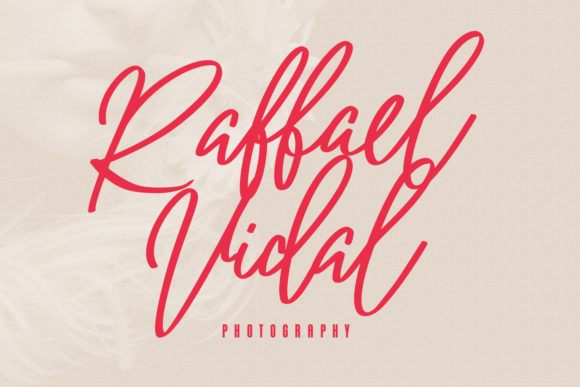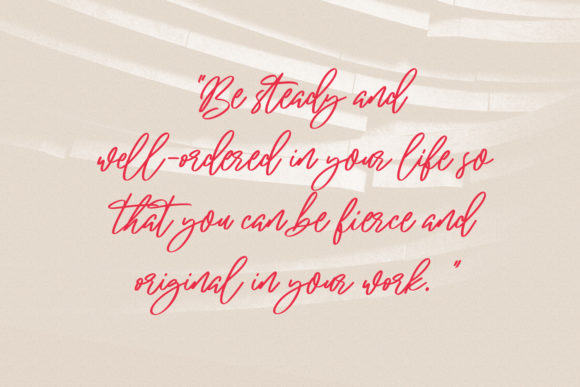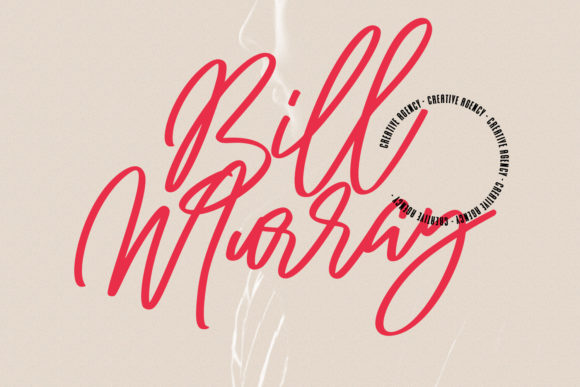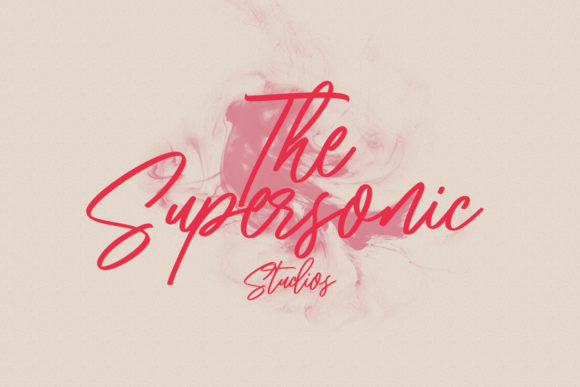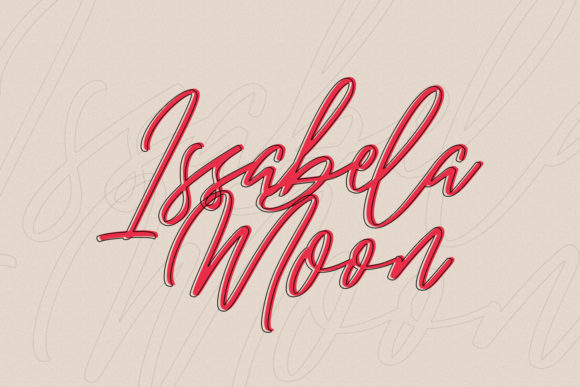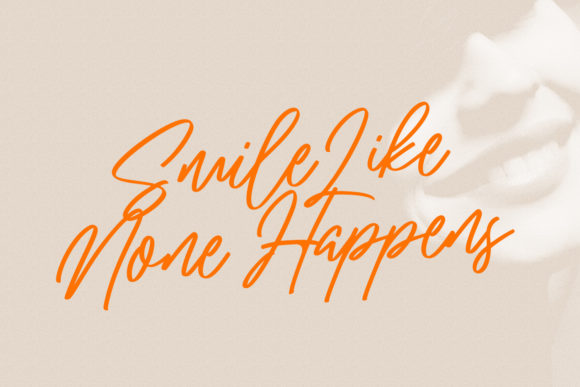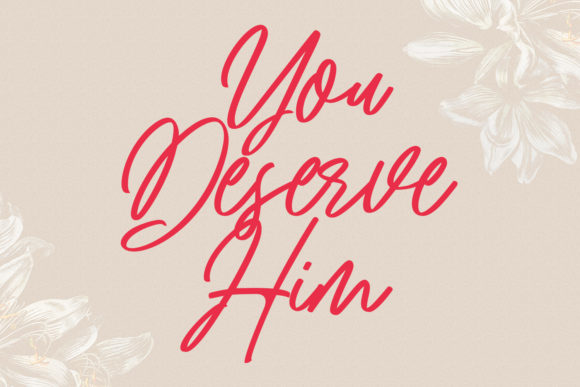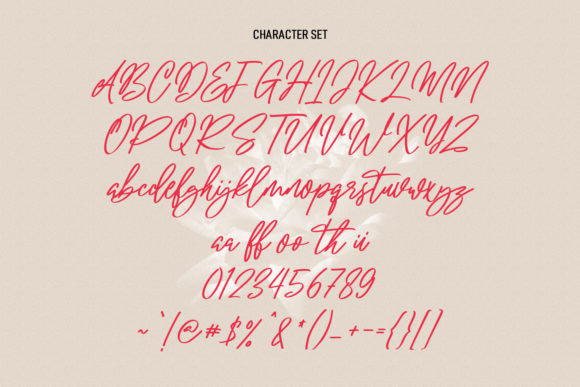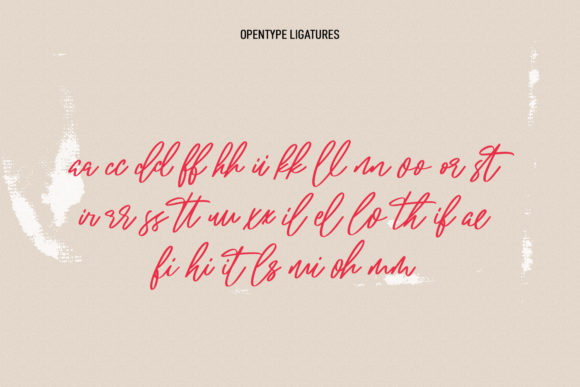
Soulections Script Font
About Soulections Script Font
Soulections Script is a lovely script font featuring charming, playful characters that seem to dance along the baseline. Add this font to your most creative ideas, and notice how it makes them stand out!